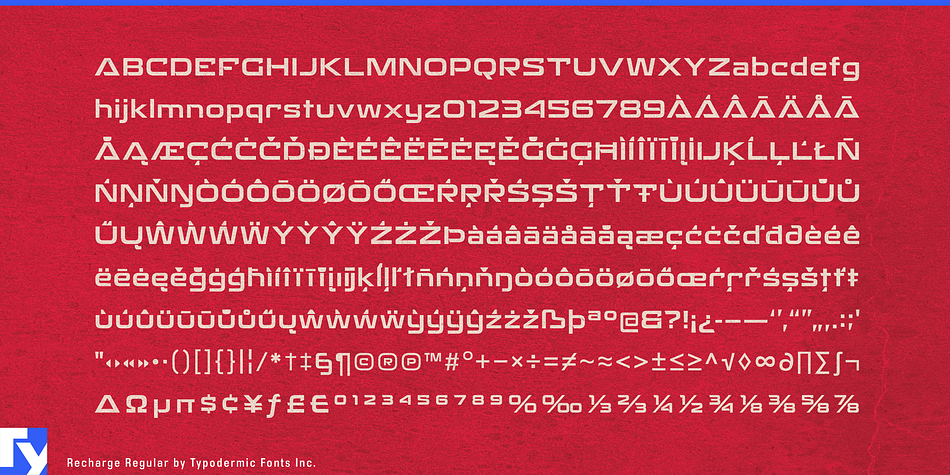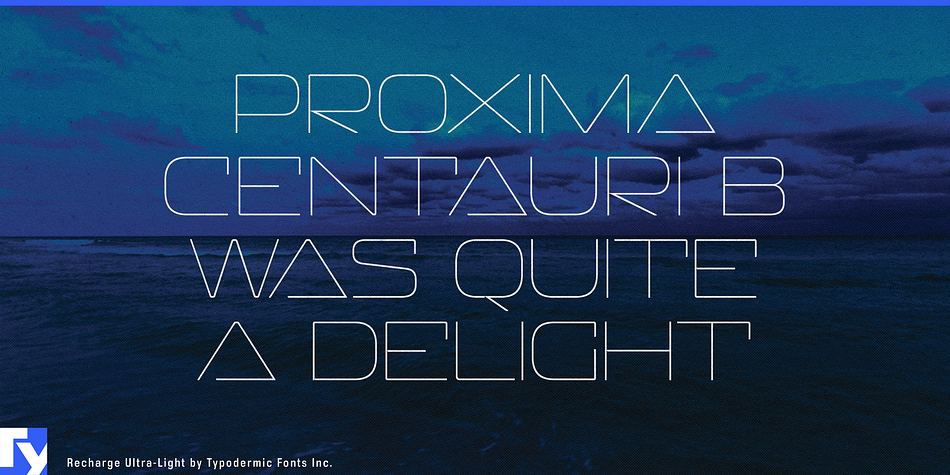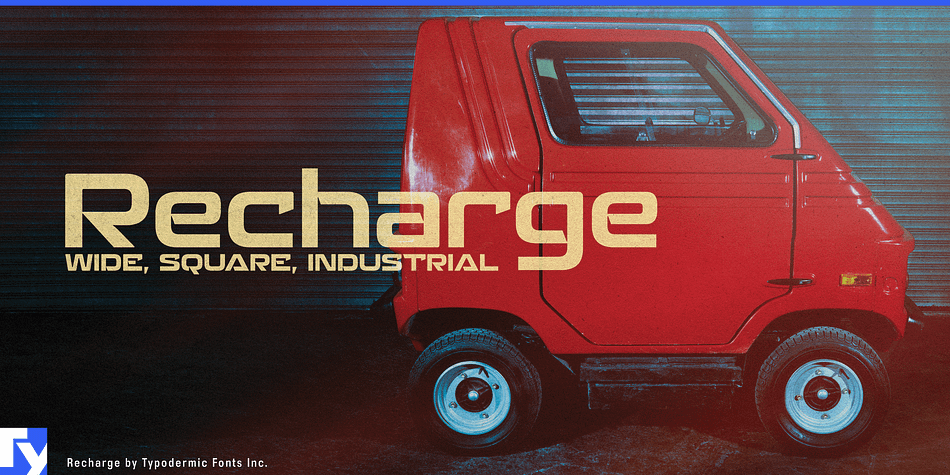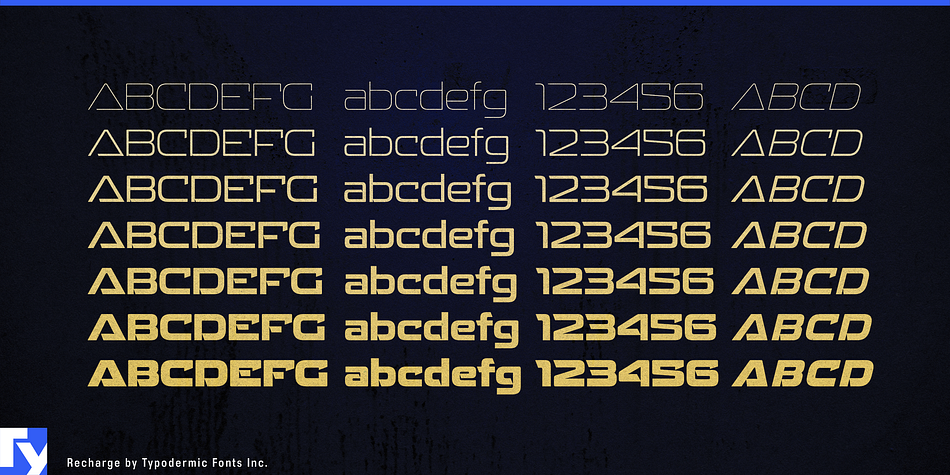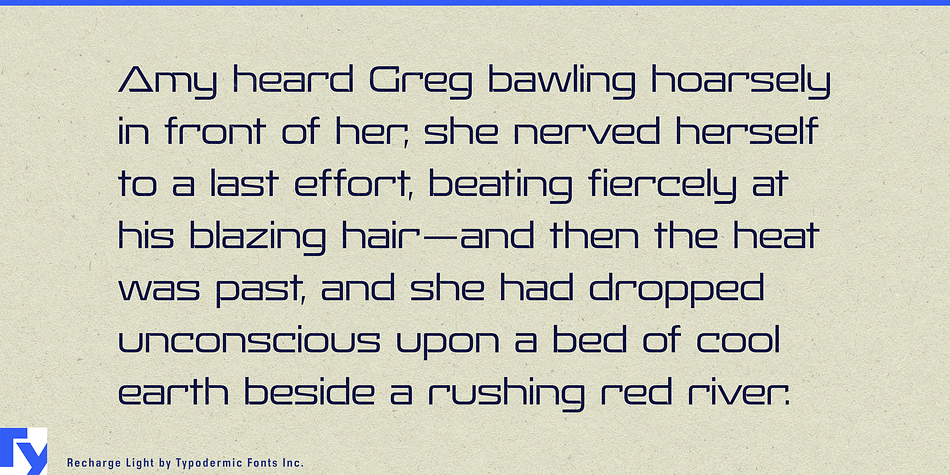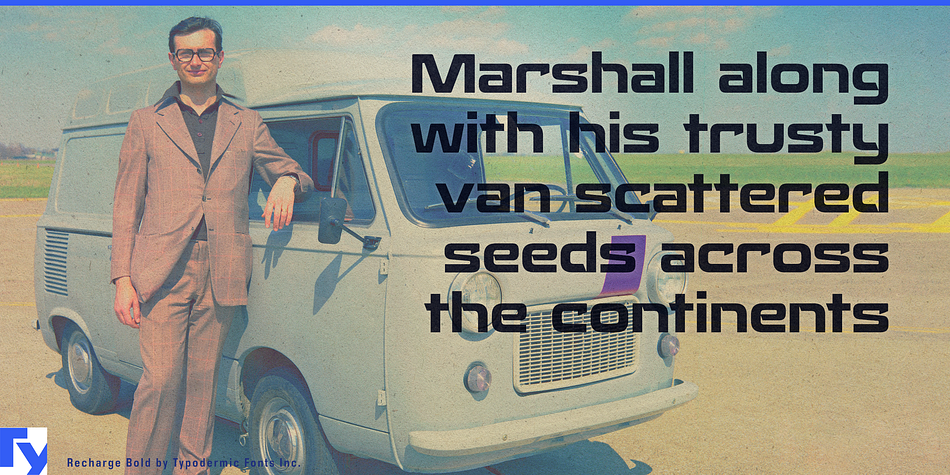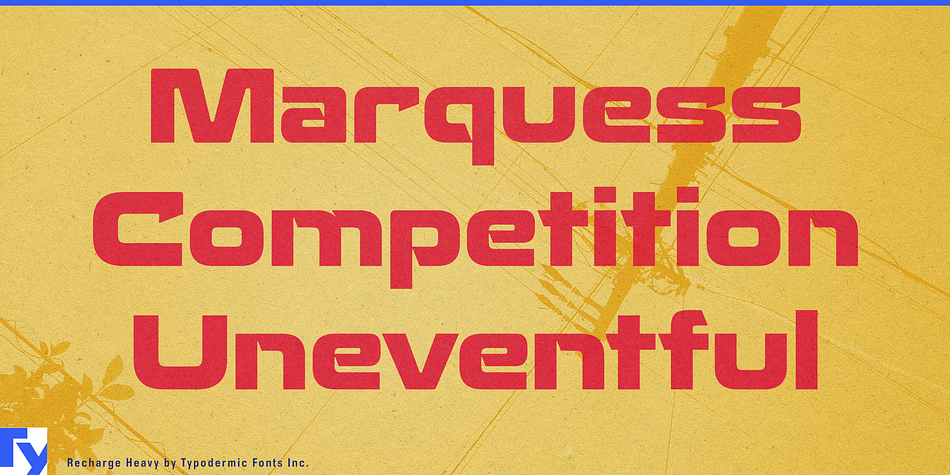
Recharge is a display sans font family. This typeface has fourteen styles and was published by Typodermic Fonts Inc.
Recharge is a wide, square, industrial font family. It’s suited for sports, military, space, automotive, electronics and other technological themes. Seven weights give Recharge practical range. Recharge’s capitals blast headlines and the lowercase is smooth enough to deliver clean paragraphs. Recharge comes with math symbols, numerical ordinals, fractions and the latest monetary symbols.